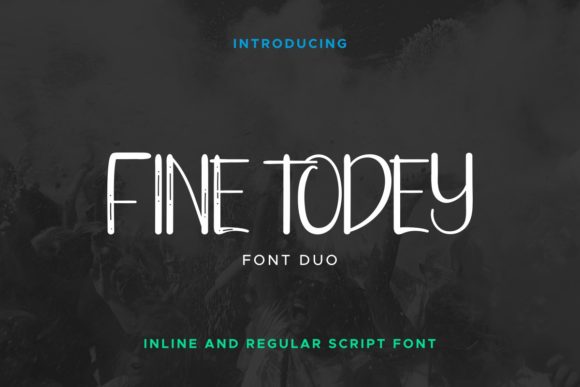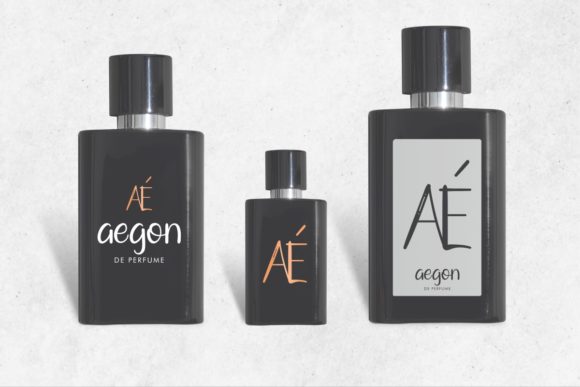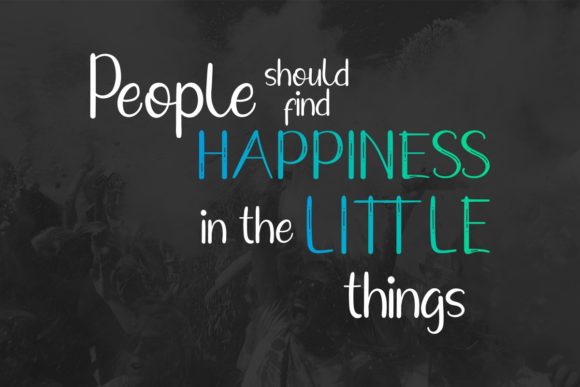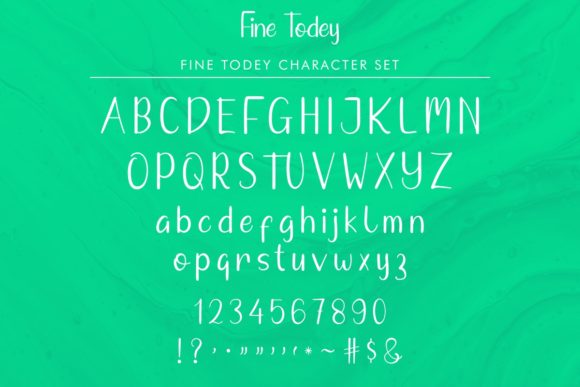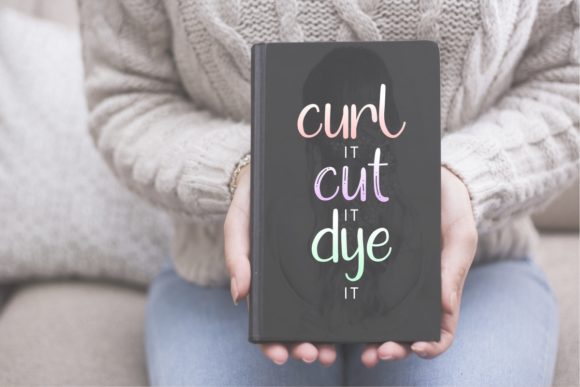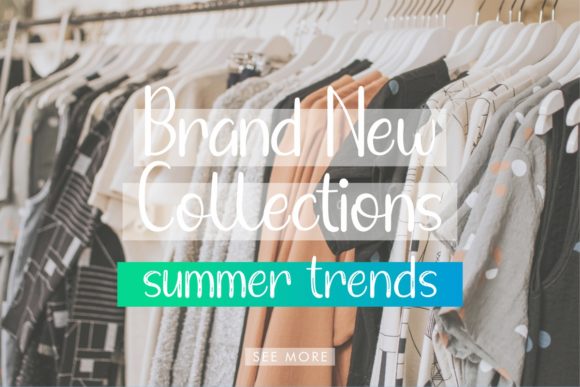
Introducing the Fine Todey Font: Elevate Your Designs with Elegance and Sophistication
In the world of typography, fonts play a crucial role in conveying the tone and personality of a design. For designers and crafters looking to add a touch of classic elegance and sophistication to their work, the Fine Todey Font is an excellent choice. This beautiful script font, with its handwriting style and two distinct styles – regular and textured – is perfect for a wide range of design projects, from logos and stationery to posters and business cards.
What is the Fine Todey Font?
The Fine Todey Font is a versatile script font that boasts a handwriting style, giving it a personal and unique touch. Its two styles, regular and textured, offer designers the flexibility to choose the perfect look for their project. The regular style is smooth and elegant, while the textured style adds a layer of depth and character, giving designs a more rustic and vintage feel.
Key Features of the Fine Todey Font
- Handwriting Style: The Fine Todey Font features a beautiful handwriting style that adds a personal touch to any design.
- Two Styles: Choose from two distinct styles – regular and textured – to suit your design needs.
- Elegant and Sophisticated: This font is perfect for creating elegant and sophisticated designs that exude class and style.
- Highly Versatile: Use the Fine Todey Font for a wide range of design projects, including logos, stationery, posters, business cards, and more.
Use Cases for the Fine Todey Font
The Fine Todey Font is incredibly versatile and can be used for a variety of design projects. Here are some use cases to get you started:
- Logos: Create a lasting impression with a logo that features the Fine Todey Font. Its elegant and sophisticated style makes it perfect for luxury brands, boutiques, and high-end services.
- Stationery: Add a touch of class to your stationery, including letterheads, envelopes, and notecards, with the Fine Todey Font.
- Posters: Create eye-catching posters that showcase the Fine Todey Font. Its textured style adds a layer of depth and character, making it perfect for advertising, events, and promotions.
- Business Cards: Stand out from the crowd with business cards that feature the Fine Todey Font. Its elegant and sophisticated style makes it perfect for professionals and entrepreneurs.
Tips for Using the Fine Todey Font
To get the most out of the Fine Todey Font, here are some tips to keep in mind:
- Pair with Other Fonts: Experiment with pairing the Fine Todey Font with other fonts to create a unique and visually appealing design.
- Adjust Font Size: Adjust the font size to suit your design needs. The Fine Todey Font looks great in large and small sizes.
- Use for Headlines and Titles: Use the Fine Todey Font for headlines and titles to add a touch of elegance and sophistication to your design.
In conclusion, the Fine Todey Font is a beautiful script font that offers designers and crafters a unique and versatile way to add elegance and sophistication to their work. With its handwriting style, two distinct styles, and high level of versatility, this font is perfect for a wide range of design projects. Whether you’re creating logos, stationery, posters, or business cards, the Fine Todey Font is an excellent choice.